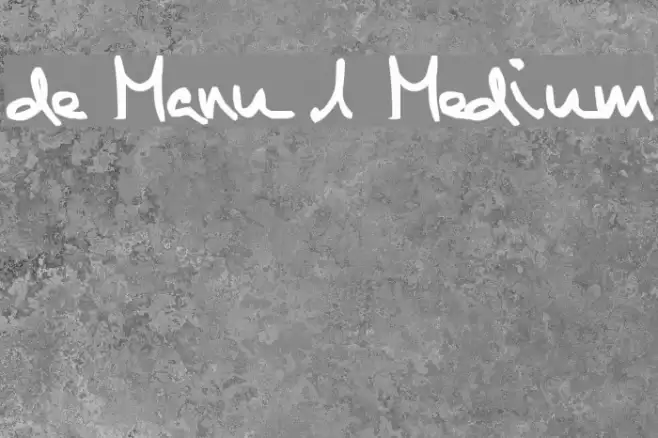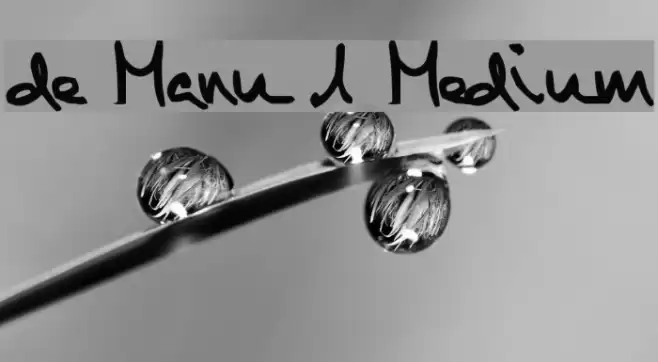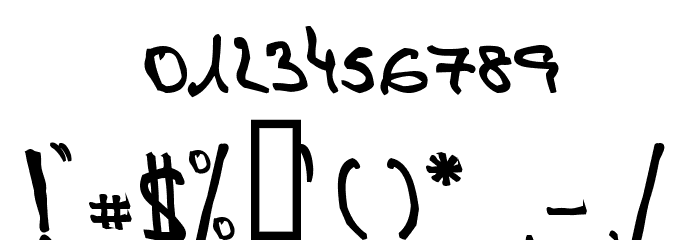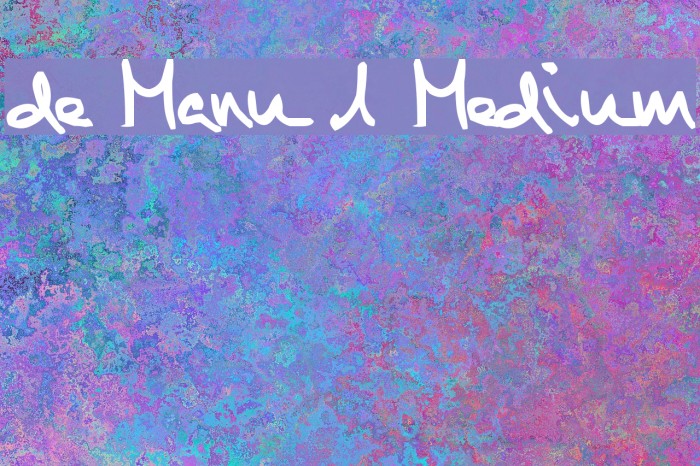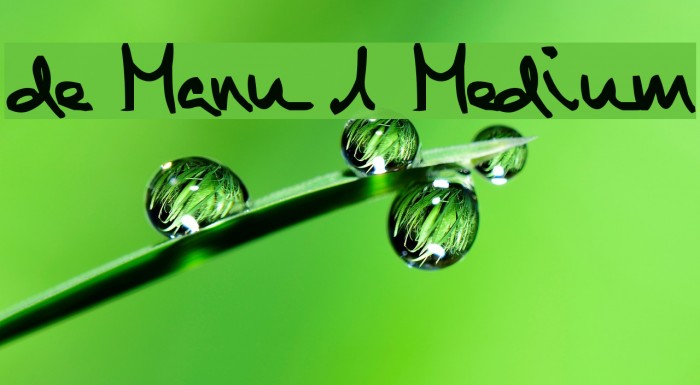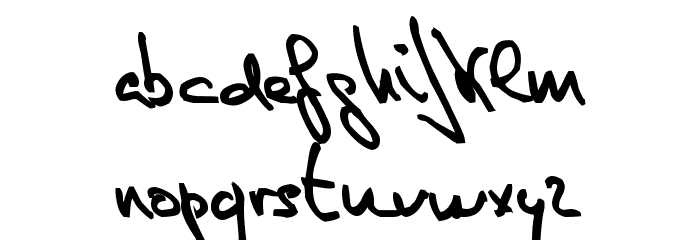
de Manu 1 Medium Font
de Manu 1 Medium Description
This font exhibits a dynamic and energetic handwritten style, characterized by its bold and expressive strokes. The uppercase letters are prominently large and slightly irregular, giving a sense of spontaneity and movement. The lowercase letters maintain a consistent flow, with some letters extending below the baseline, adding to the font's lively appearance. The numerals are bold and clear, matching the overall style of the alphabet. Special characters are creatively designed, maintaining the font's playful and informal aesthetic. This font is perfect for projects that require a personal touch or a casual, artistic vibe.
A bold, expressive handwritten font with dynamic strokes from Handwritten fonts.